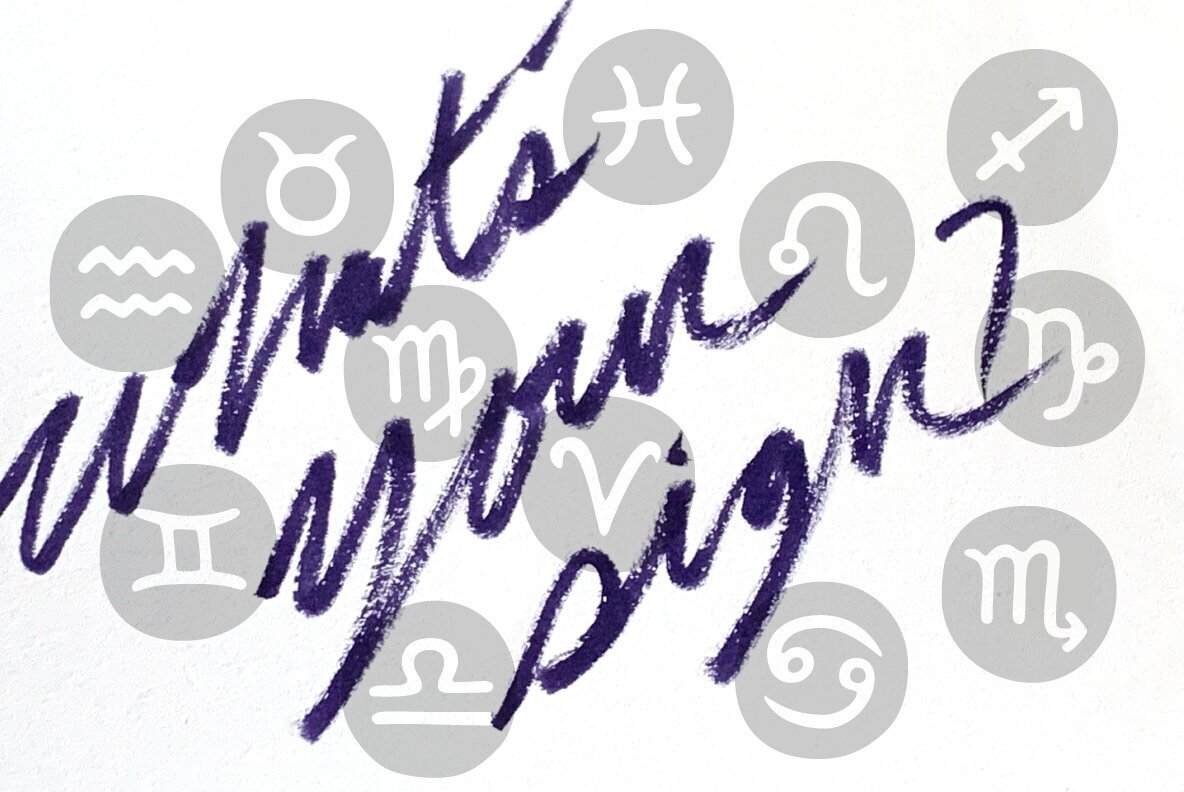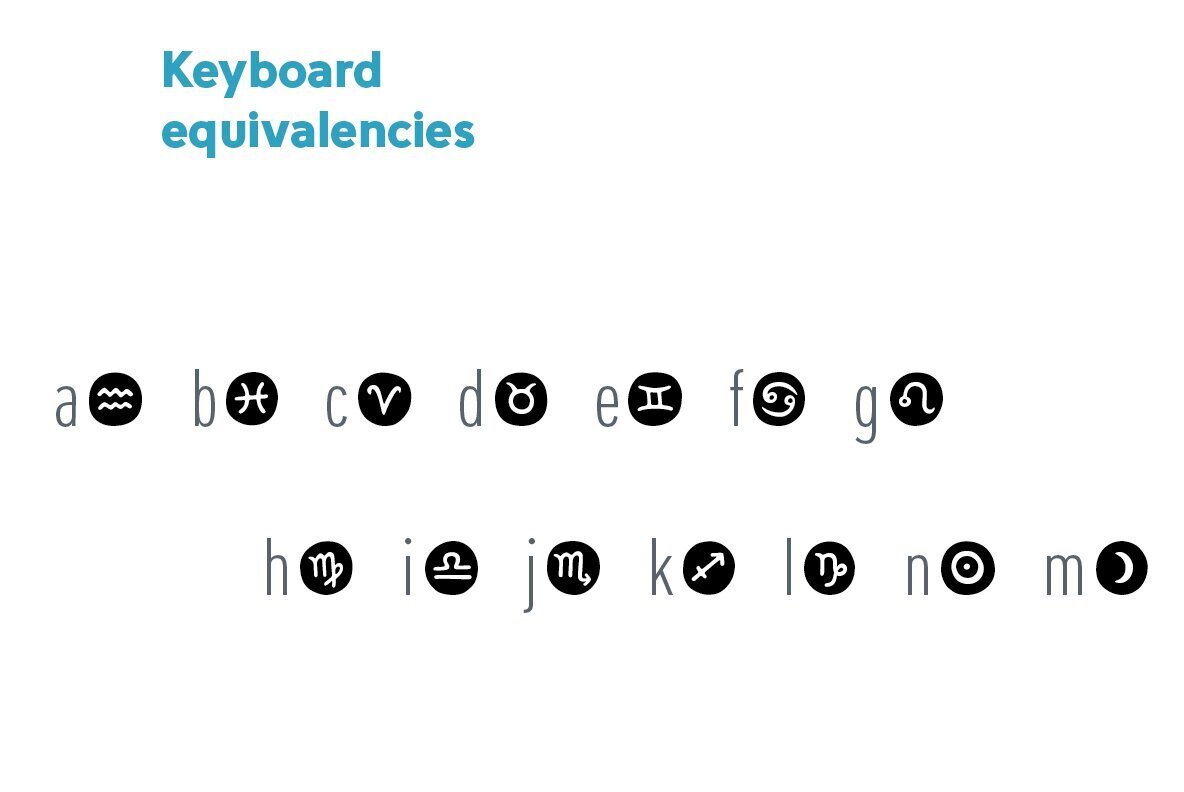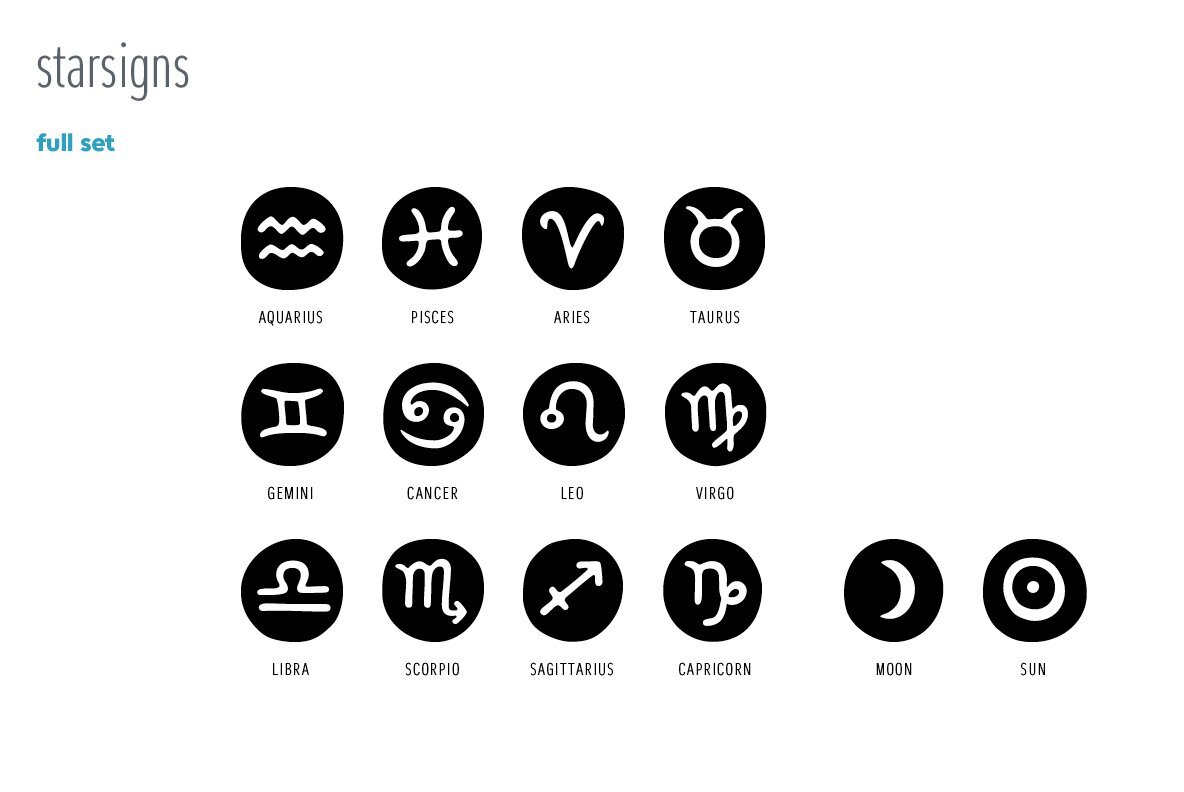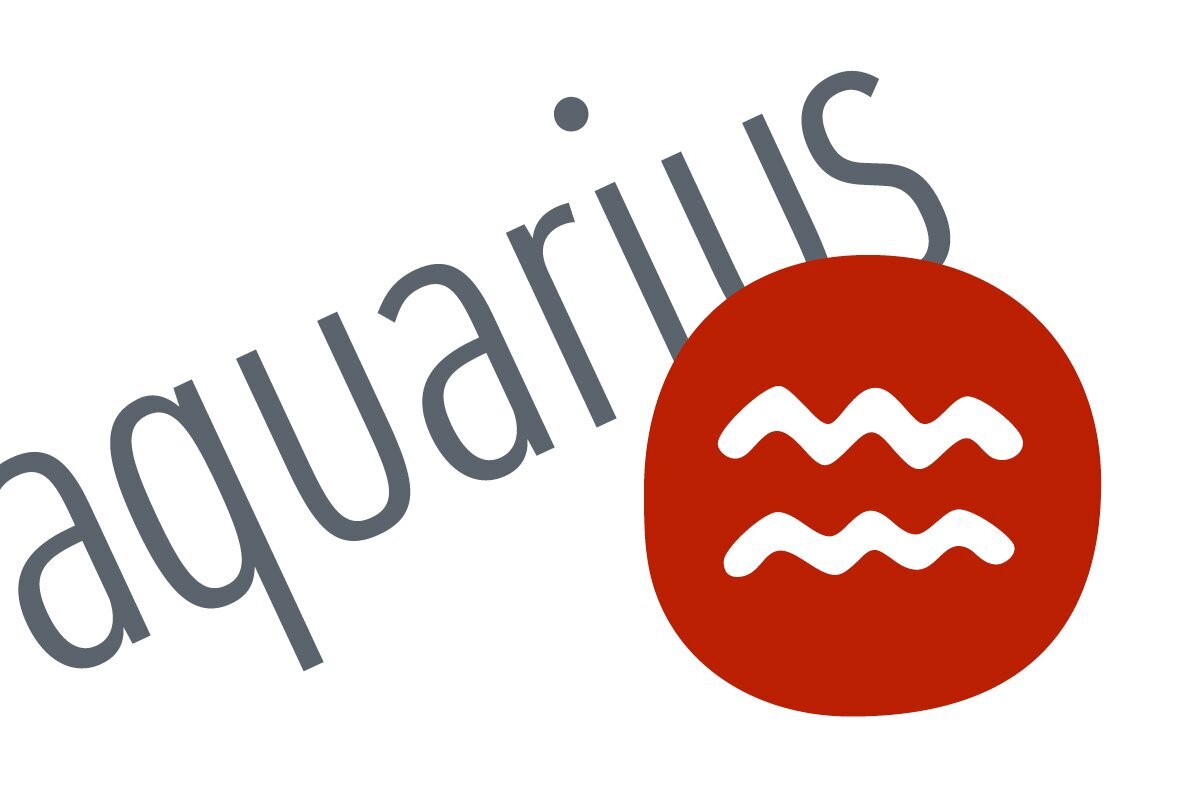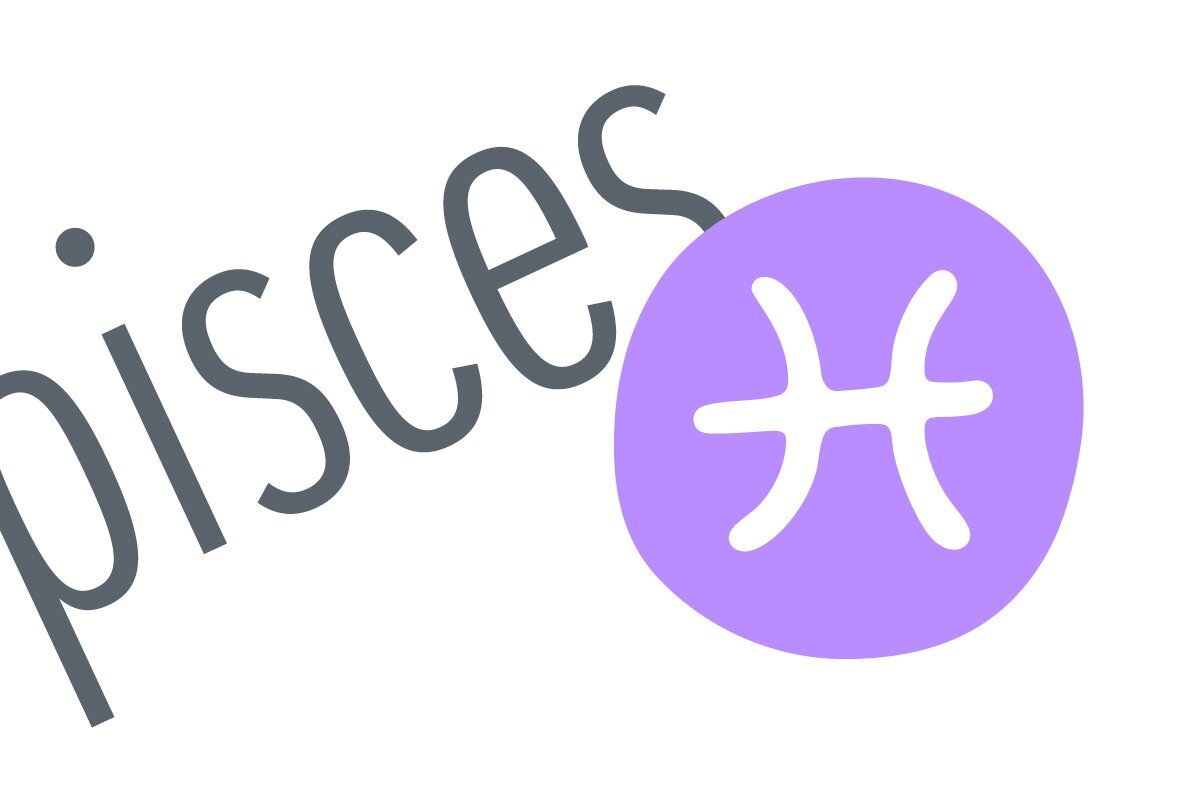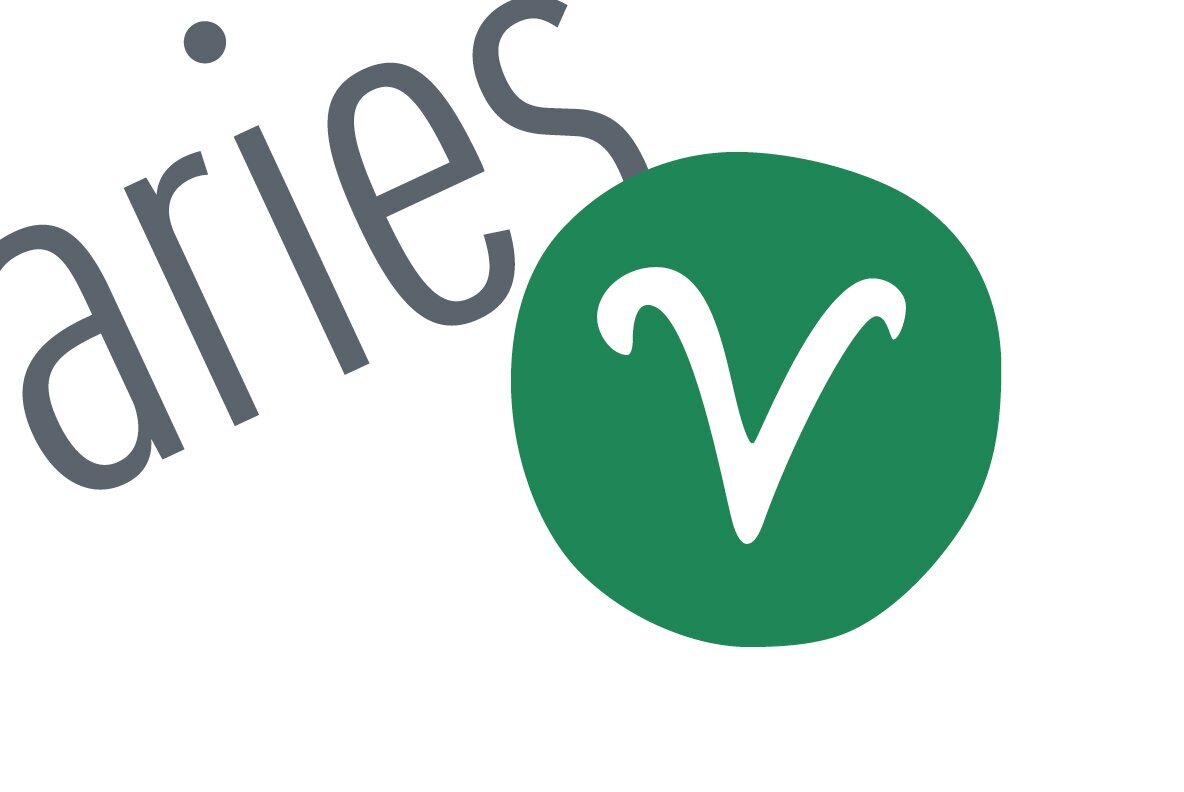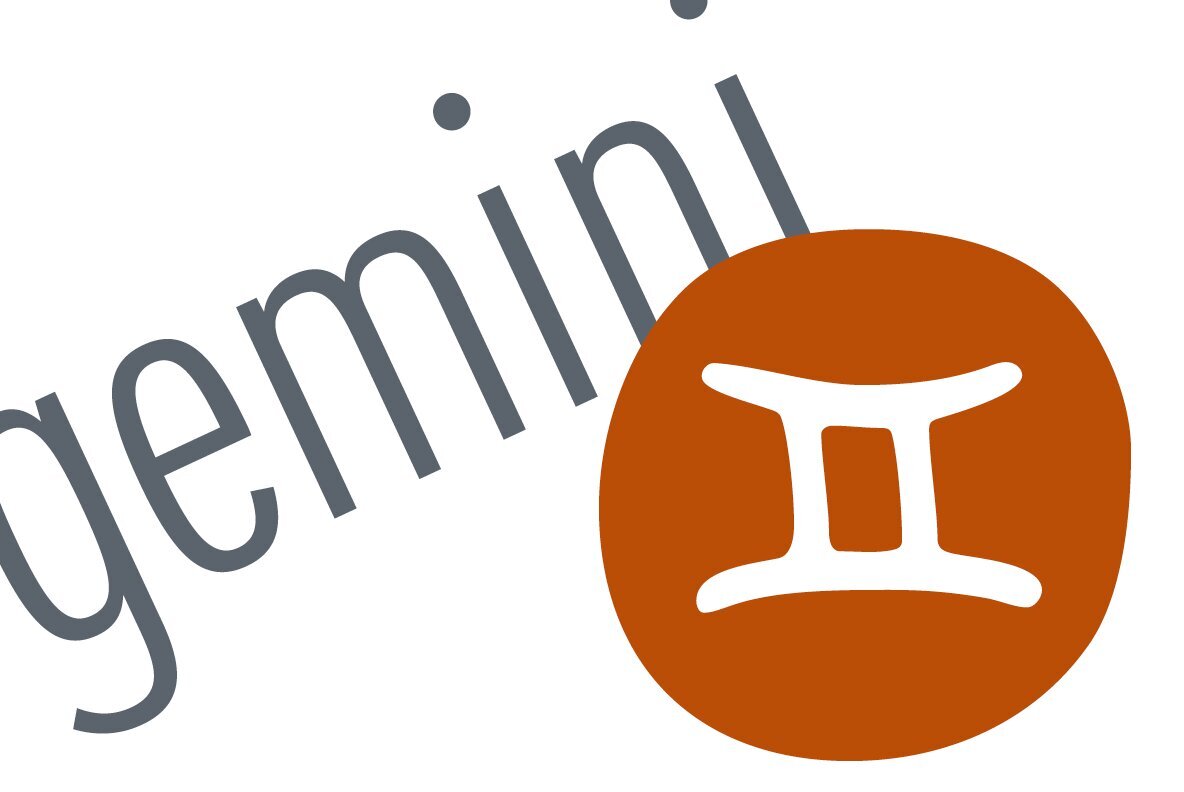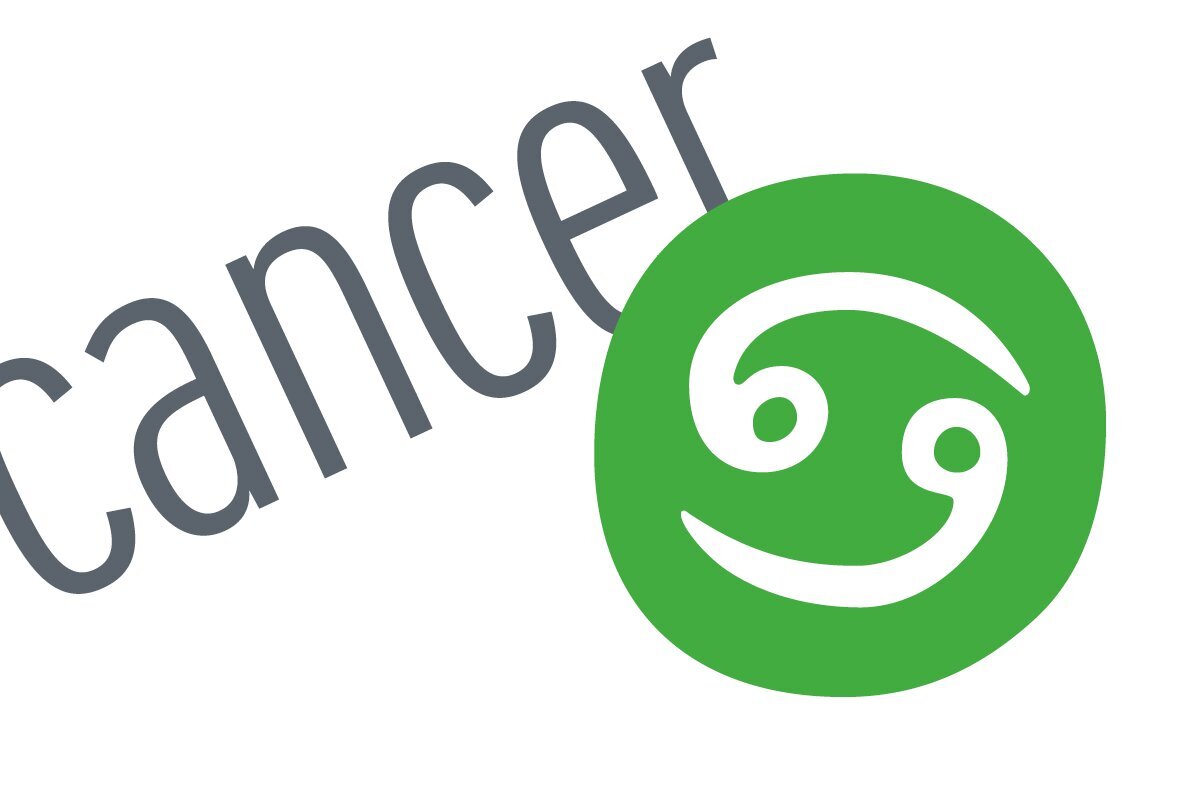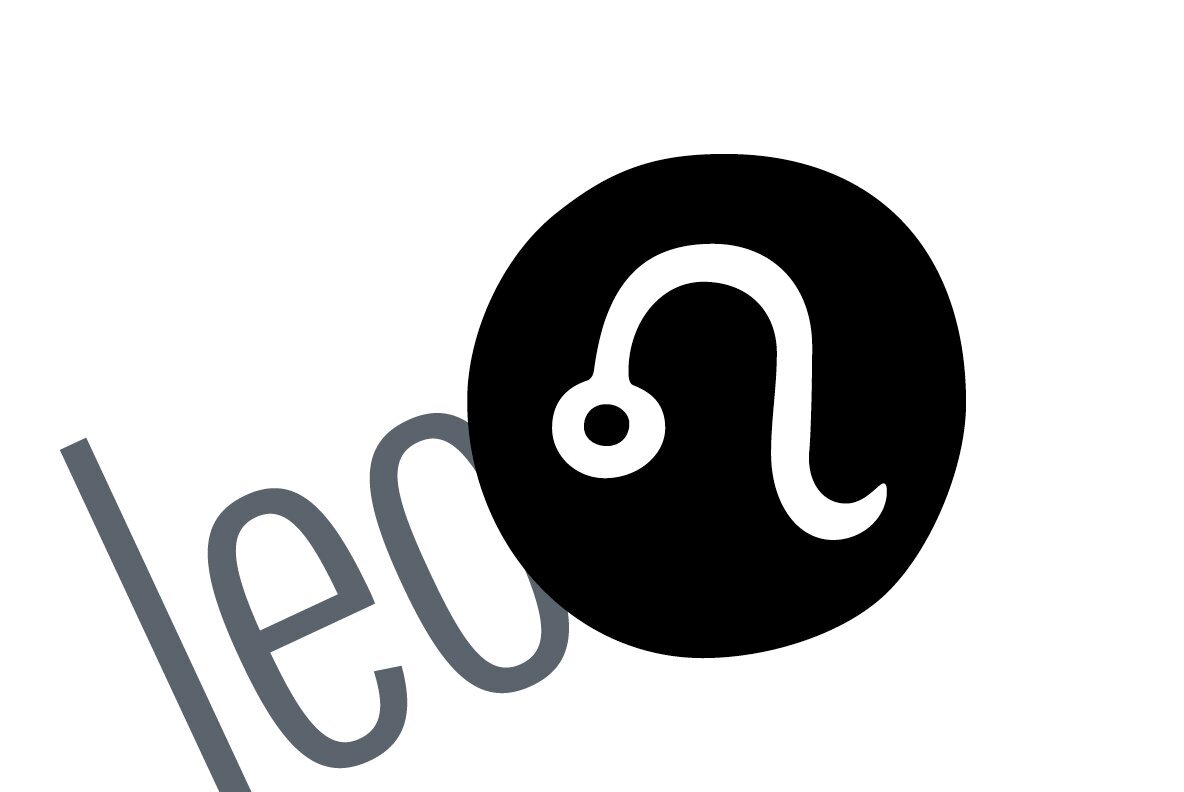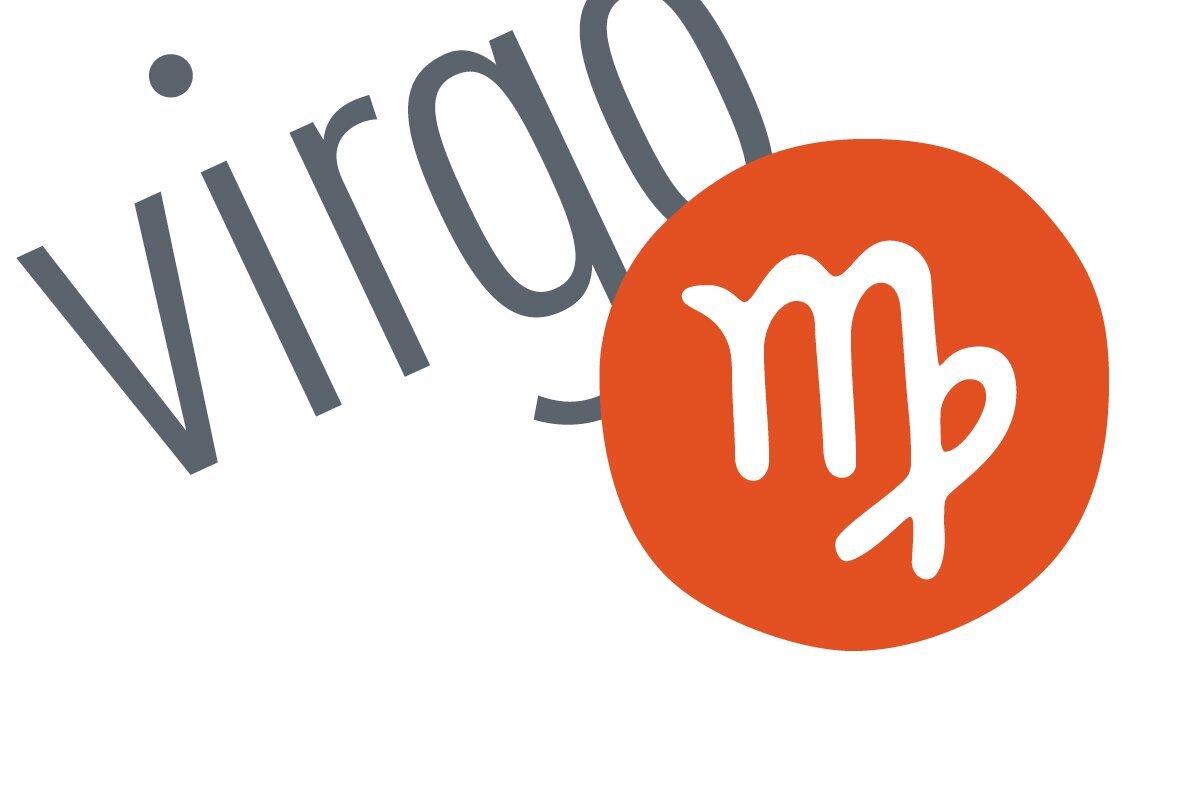
Starsigns Font
Starsigns Regular
Starsigns is a unique set of zodiac symbols with a handmade feel. This font includes twelve astrology symbols: Aquarius, Pisces, Aries, Taurus, Gemini, Cancer, Leo, Virgo, Libra, Scorpio, Sagittarius, and Capricorn. Additionally, it features a moon and a sun symbol. The symbols were created from watercolor originals, giving them a warm and fluid quality. To utilize Starsigns, simply install it as a regular font. As you type, instead of letters, you will see the corresponding zodiac symbols. For accessing the symbols, type any lowercase letter on your keyboard between 'a' and 'm'. Most design software, such as Illustrator, InDesign, and Photoshop, provide a glyphs palette where you can select the desired symbol precisely.